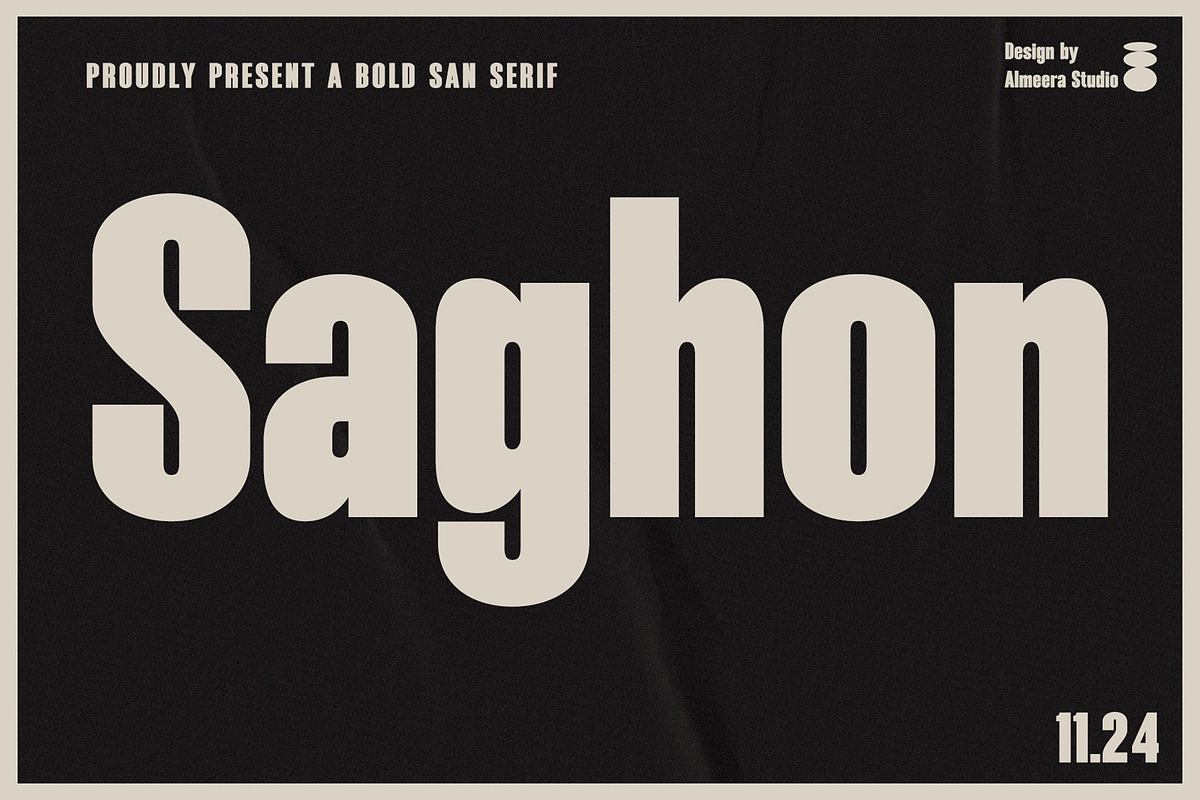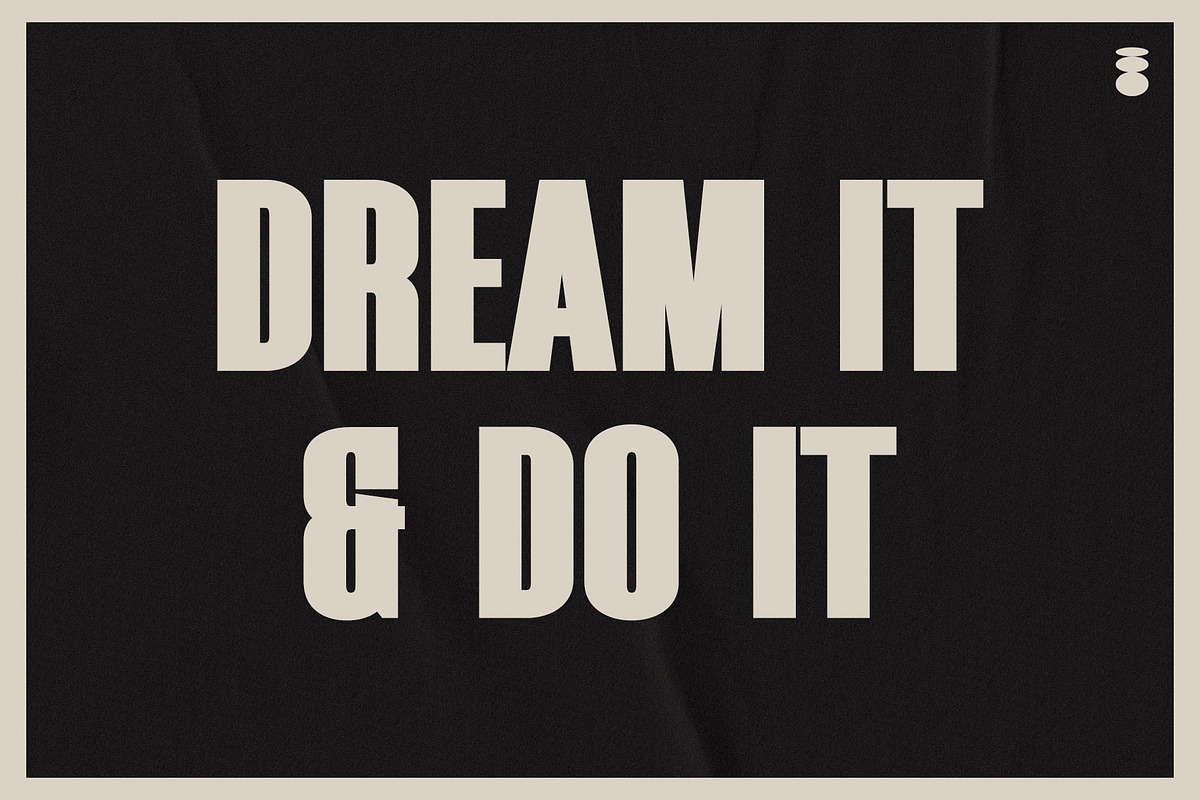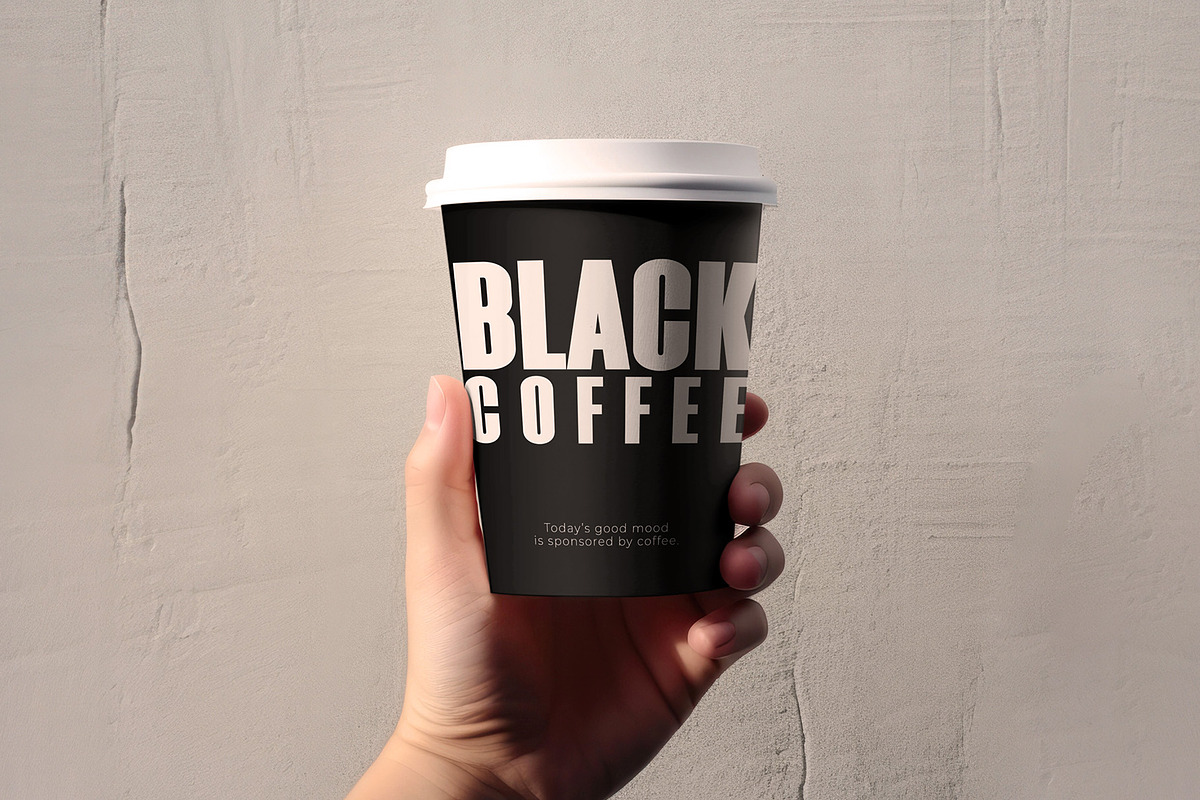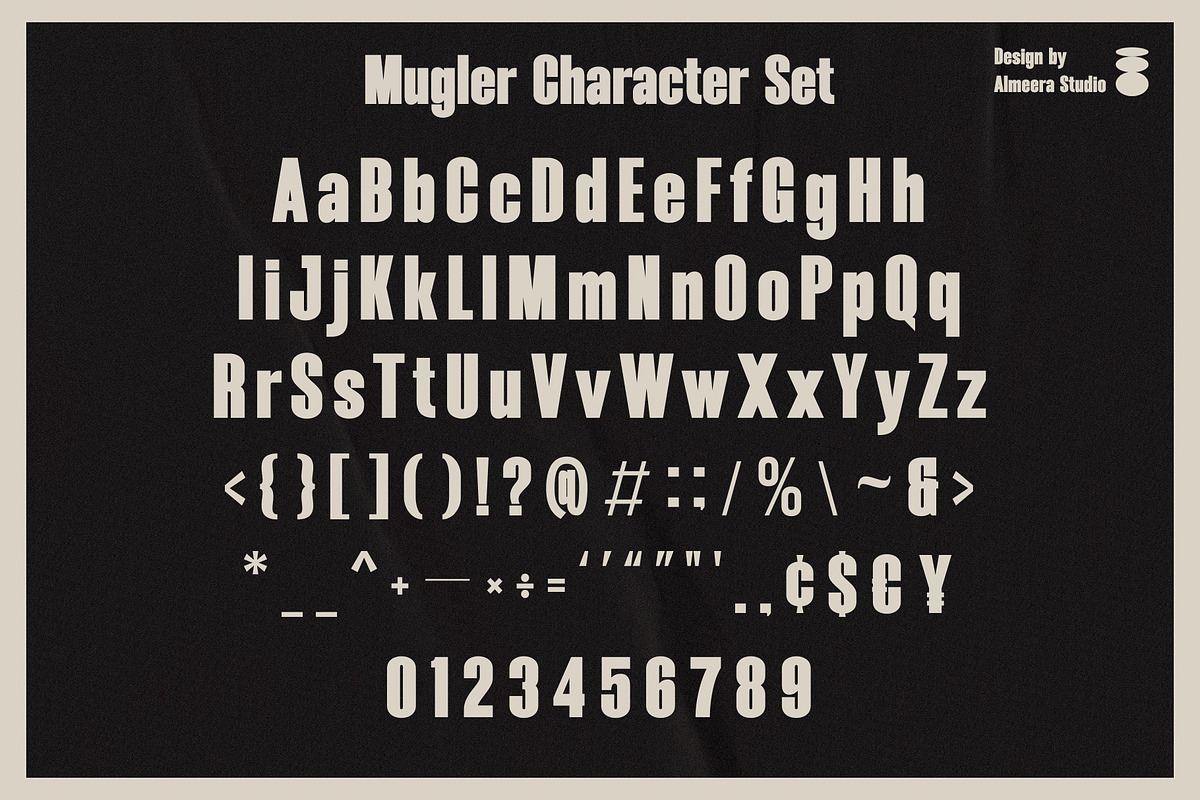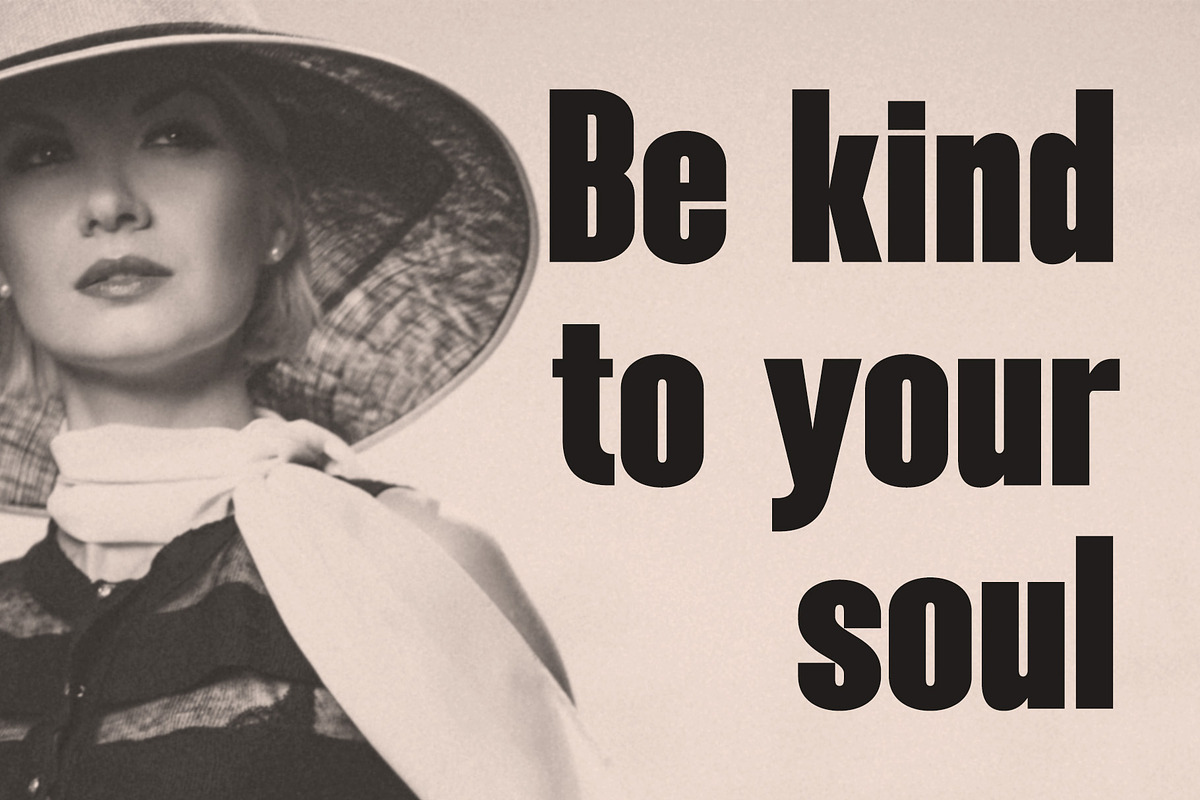
Saghon - Modern San Serif
Introducing Saghon - Modern San Serif Font. Saghon is a display and simple san serif font, This type of font is very suitable for your various needs such as branding projects, logos, social media posts, advertisements, labels, product packaging, photography, wedding designs, watermarks, invitation product designs, stationery, and any project.